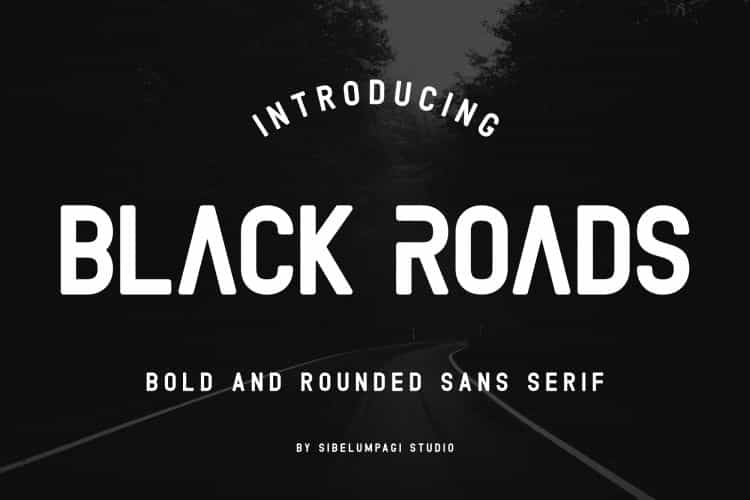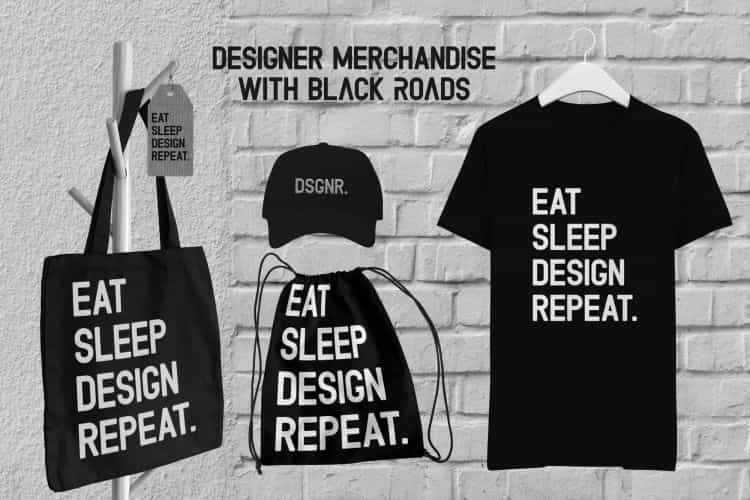
Introducing Black Roads Font. BlackRoads Typeface is a neat and powerful sans serif font with the bold and rounded shape. There are two styles regular and outline. Black Roads is a great option for many projects like logos & branding, invitation, stationery, social media posts, apparel, advertisements product packaging and designs label photography watermark special events or anything else you can think of.